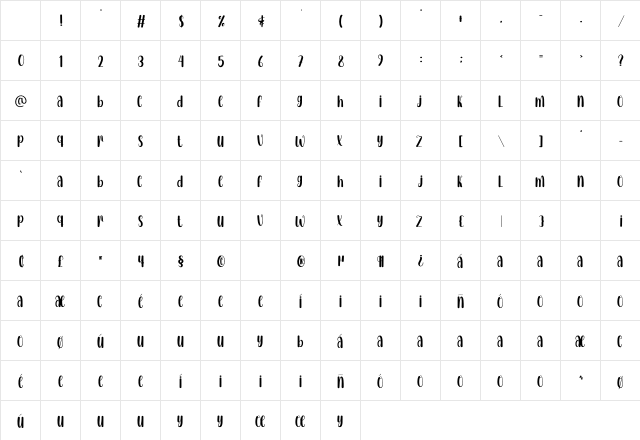
Complete New Easter Regular glyph index. Displaying only characters natively supported by New Easter Regular font.
New Easter is a composed and adaptable typeface that performs quietly and consistently across a wide range of design contexts.